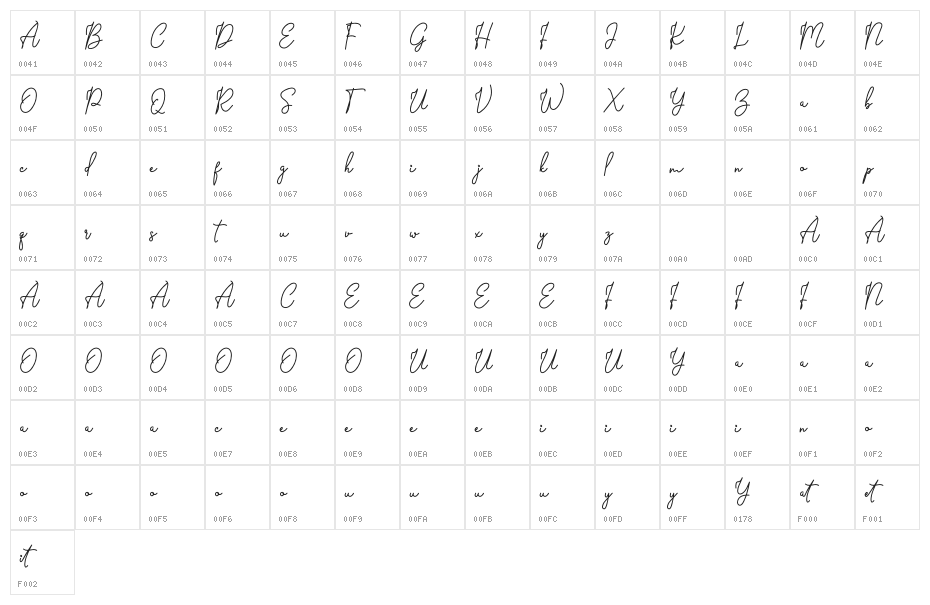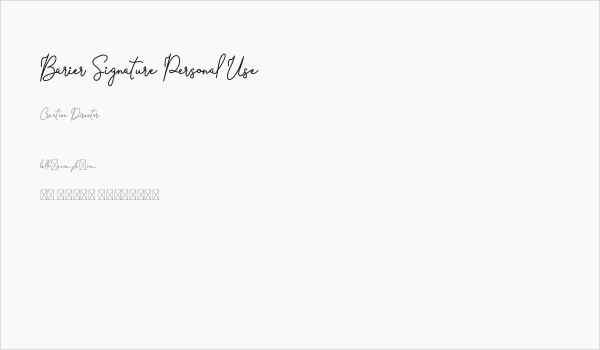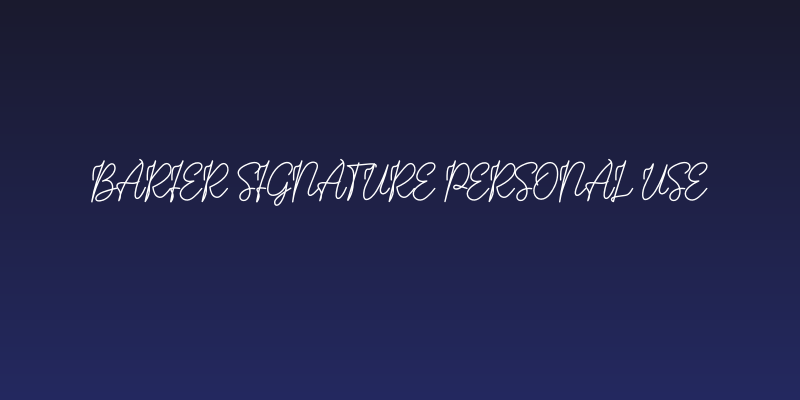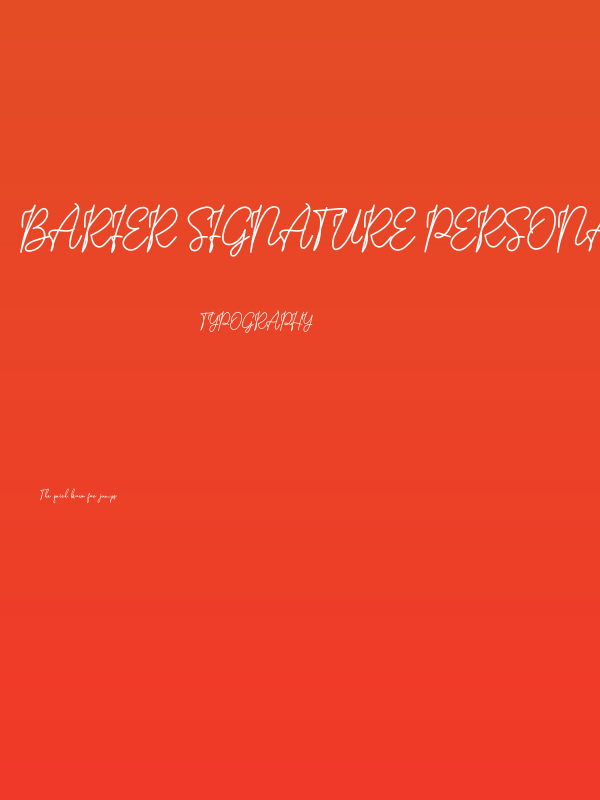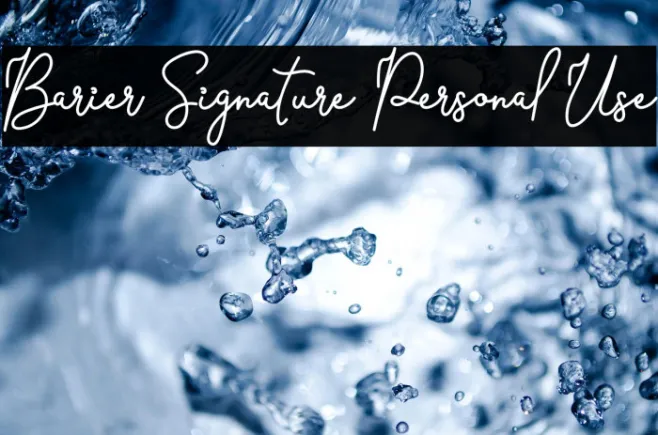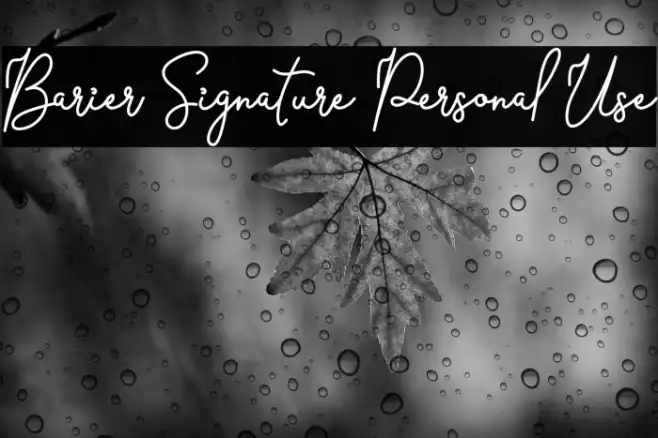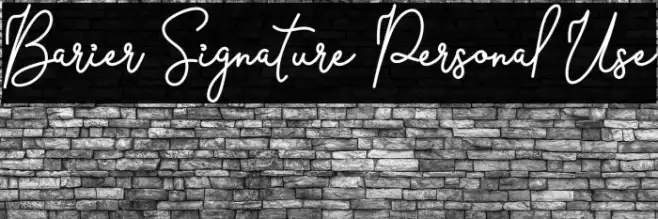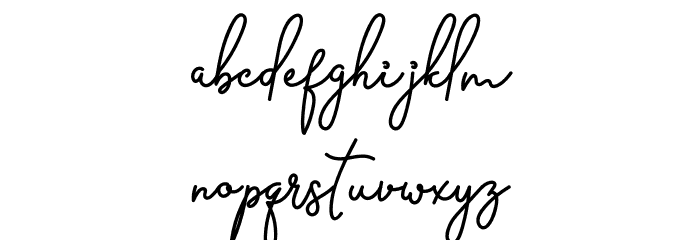
Barier Signature Personal Use Font
Barier Signature Personal Use Description
This elegant script font features a fluid, handwritten style that exudes sophistication and charm. The uppercase letters are bold and sweeping, with graceful curves and loops that give a sense of movement and flair. The lowercase letters maintain a consistent flow, with a slightly more restrained design that complements the uppercase beautifully. The font's overall appearance is both stylish and approachable, making it ideal for personal branding and creative projects. Its smooth lines and balanced proportions ensure readability while maintaining an artistic touch.
| Proposed Projects | Ideal for wedding invitations, personal branding, greeting cards, and elegant logos. |